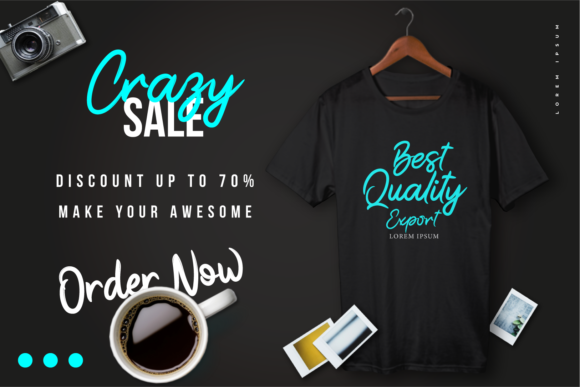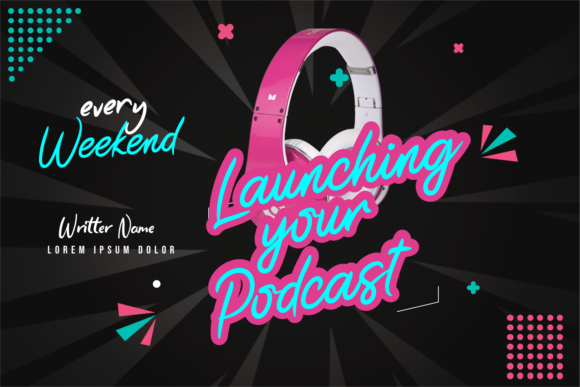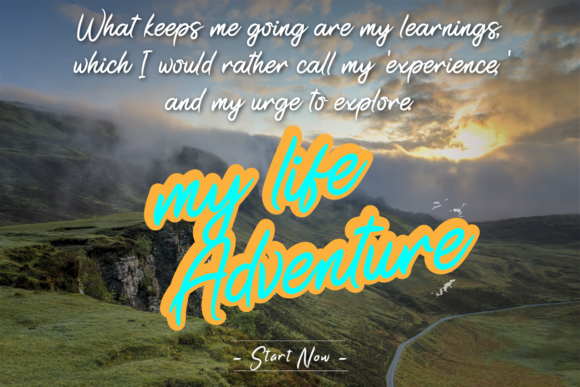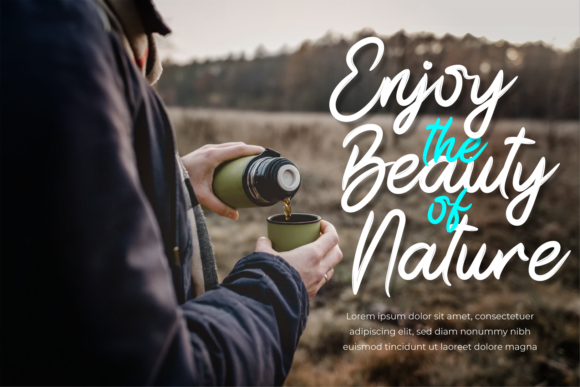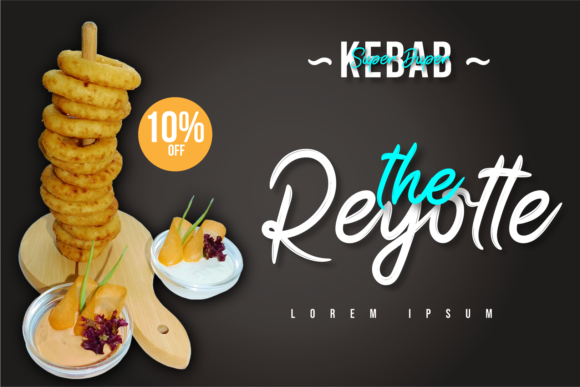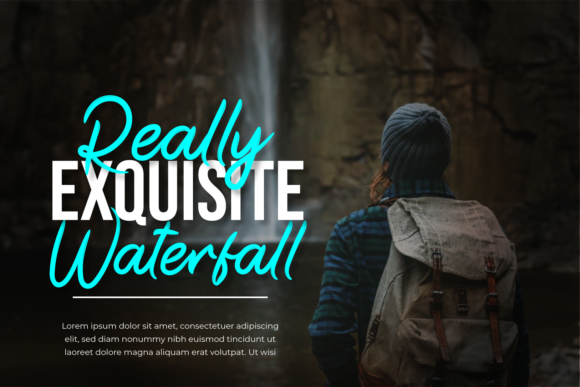
Introduction to Kamelia Font
Kamelia is a sweet, whimsical and flowing brushed handwritten font.
It has a trendy style and it will most definitely embellish your project ideas .
Key Features of Kamelia Font